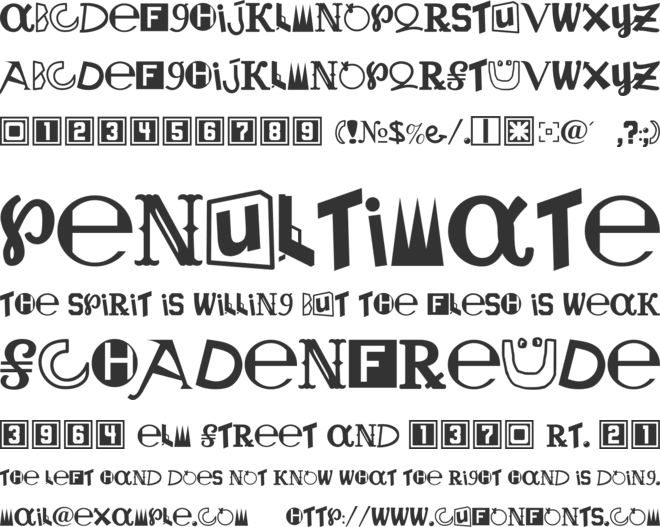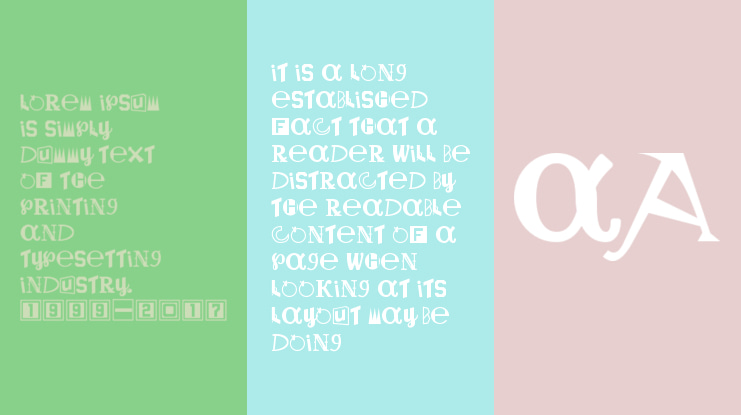
Koda135759 Font
Koda135759 is the newest ransom note font created by me. Despite the fact, it is not the first font to have an Esperanto title. The title in Esperanto translates to English as "Code 135759."